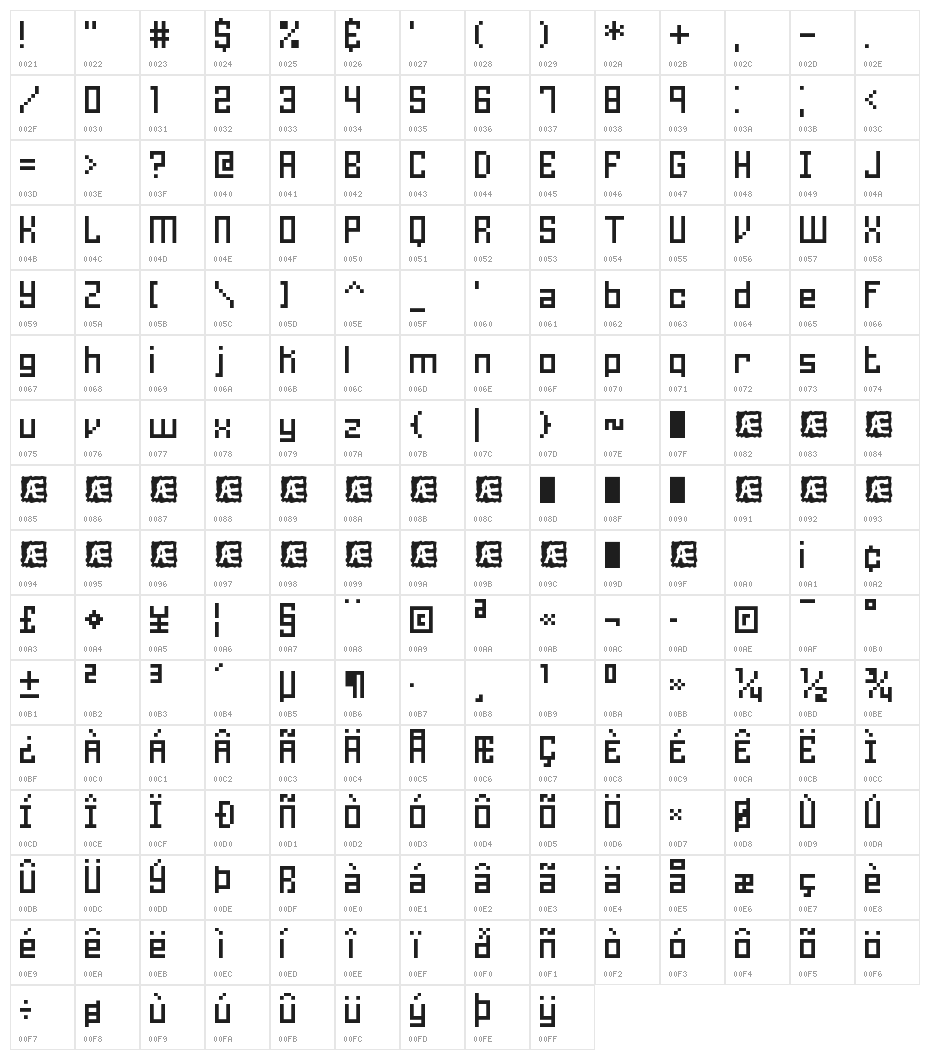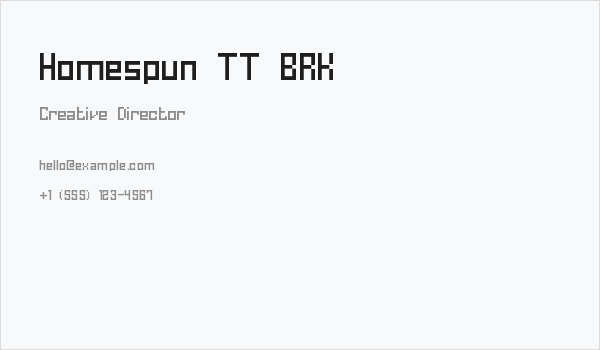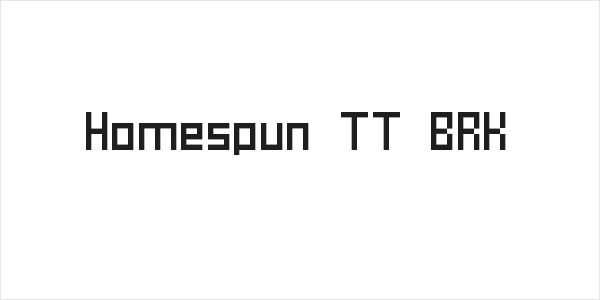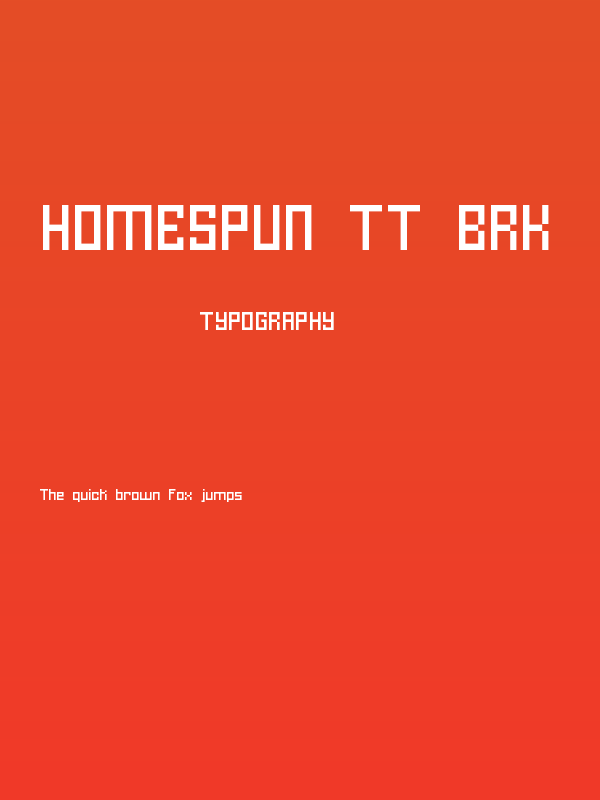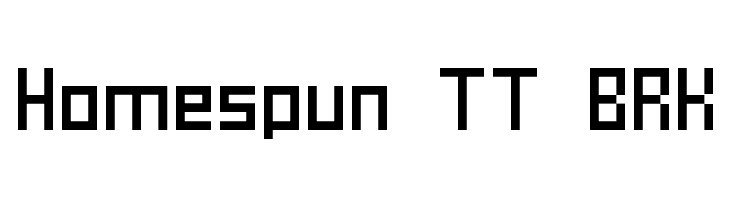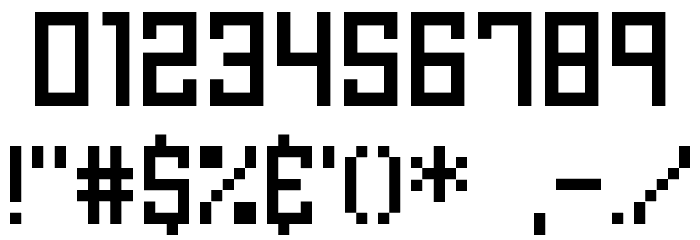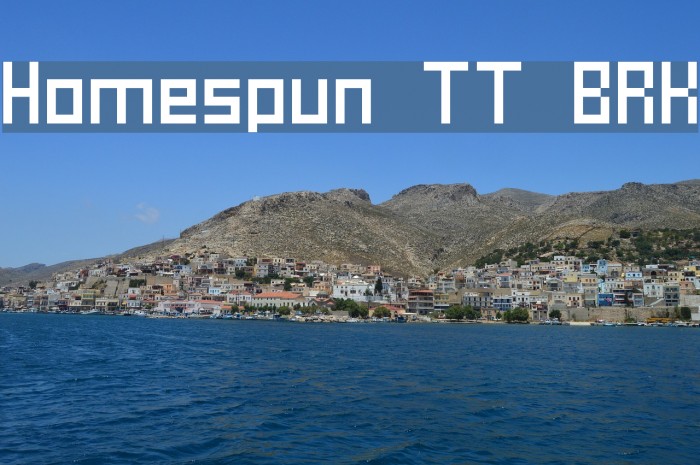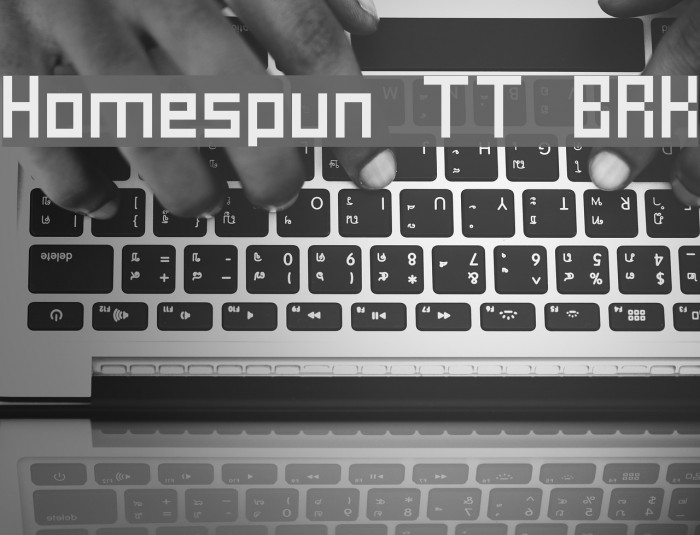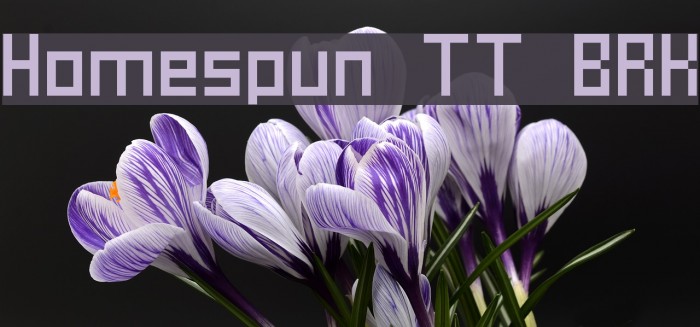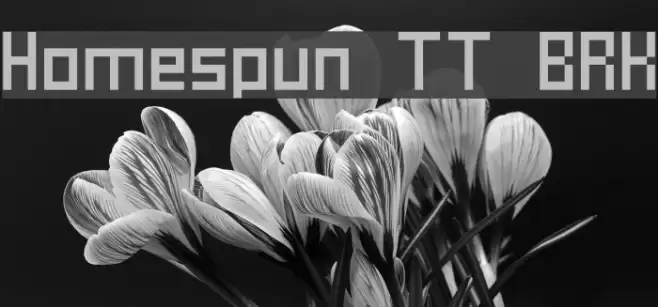
Homespun TT BRK Font
Homespun TT BRK Description
This font features a pixelated, blocky design reminiscent of early digital displays and retro video games. Each character is constructed with a grid-like precision, giving it a distinctly digital and geometric appearance. The uppercase and lowercase letters maintain a consistent height, emphasizing uniformity and simplicity. Numbers and special characters follow the same structured design, ensuring a cohesive look across all glyphs. The font's style is straightforward and functional, ideal for projects that require a nostalgic or tech-inspired aesthetic.
| Overall Style | Retro, Digital |
| Use Case | Logos, Headlines, Digital Art |
| Proposed Projects | Ideal for retro video game graphics, digital art projects, tech-themed posters, and any design requiring a vintage digital feel. |